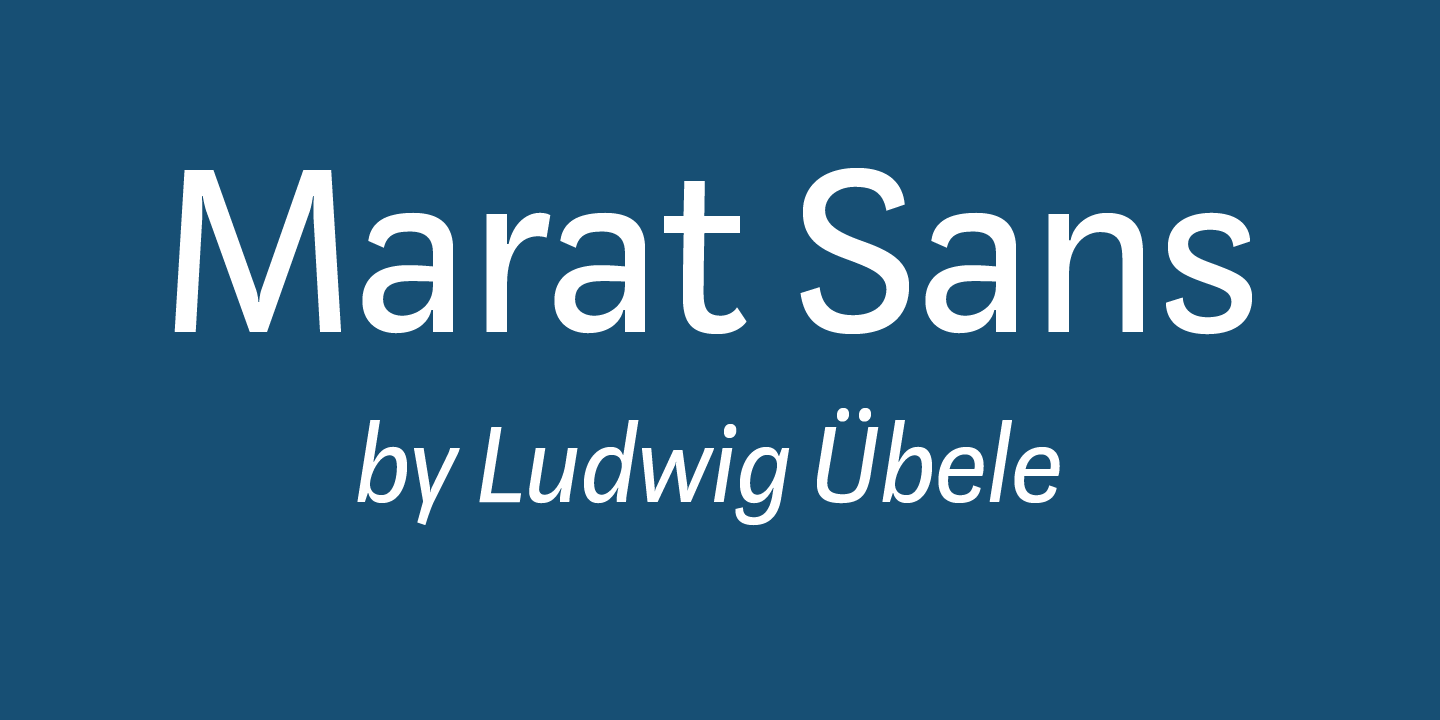
Marat Sans Font is perfect for clean corporate websites, modern tech company branding, minimalist user interface designs, contemporary digital platforms, professional mobile applications, sleek product presentations, streamlined business communications, progressive startup identities, and any design project that requires crisp modernity and sophisticated simplicity.
What makes Marat Sans Font so exciting is its masterful balance of contemporary minimalism and professional sophistication that creates instantly recognizable modern elegance through perfectly refined sans-serif letterforms. This font embodies the essence of cutting-edge design with its clean, geometric character shapes that communicate innovation, efficiency, and forward-thinking professionalism. The carefully engineered characters feature precise proportions and contemporary refinement that eliminate visual clutter while maximizing communication clarity, creating the perfect typography solution for brands and projects that demand both aesthetic excellence and functional superiority in today's digital landscape.
The Marat Sans Font family typically includes multiple weight variations from thin to black, with comprehensive character sets featuring uppercase and lowercase letters, numerals, punctuation marks, and contemporary symbols. Some versions may offer additional styles like italic variants and condensed options, providing designers with complete typographic flexibility for creating sophisticated, modern layouts with cutting-edge professional appeal.
Marat Sans Font Free Download has become increasingly valuable among UX/UI designers, tech companies, and modern brand professionals who prioritize clean, functional design excellence. This distinctive typeface excels in both digital and print applications where contemporary clarity and professional modernity are essential for communicating with tech-savvy audiences who expect seamless, sophisticated user experiences.
The font's sans-serif design makes it particularly effective for technology companies, digital platforms, modern service providers, and innovative brands that need to communicate cutting-edge professionalism and contemporary reliability. Its clean character shapes and excellent screen performance ensure professional results across all digital devices and platforms.
Designers choose Marat Sans Font for its ability to instantly modernize any project while delivering exceptional readability and professional credibility that enhances user experience. The font's contemporary construction works brilliantly on everything from mobile interfaces to sophisticated digital brand systems.
Whether you're developing modern web platforms, tech company branding, digital product interfaces, or contemporary business communications, Marat Sans Font delivers the perfect fusion of minimalist elegance and professional functionality that positions any organization at the forefront of modern design excellence.